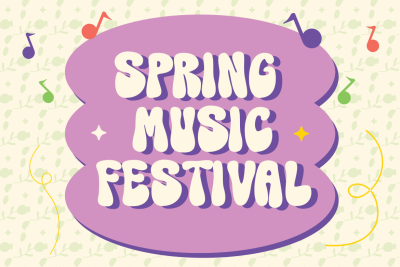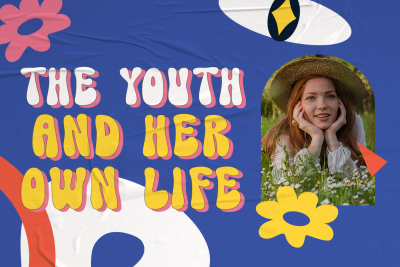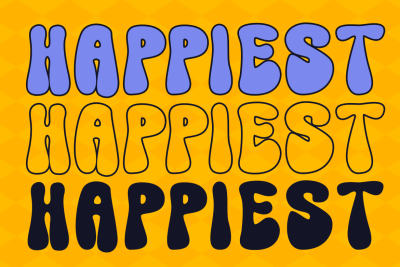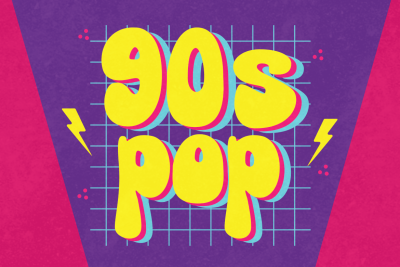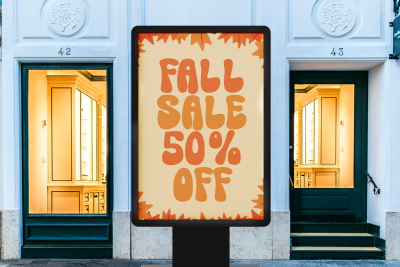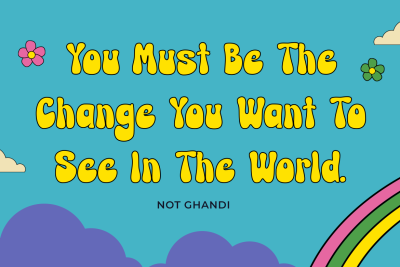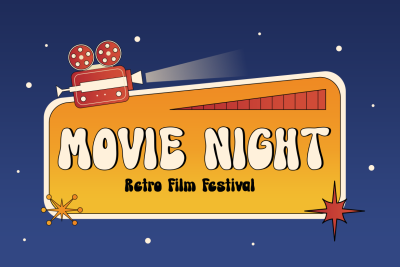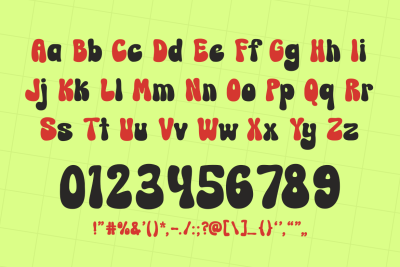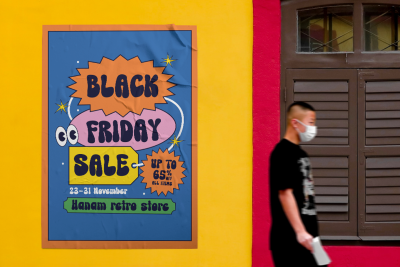
Funny font Trolun is a bold and quirky typeface designed to bring fun and creativity to any project. With its wavy, playful letterforms and hand-drawn appearance, this font adds personality to any design. Moreover, its organic, flowing shapes create movement and dynamism, making it visually engaging. Whether youโre designing a retro-inspired poster or a colorful branding project, this font ensures a lively and energetic touch.
Additionally, Trolun embraces an unconventional yet balanced design, making it visually appealing while ensuring readability. The thick strokes and smooth curves enhance its funky, artistic style. As a result, it works well for projects that need a cheerful and carefree aesthetic. Furthermore, its versatility makes it ideal for both digital and print formats. Whether you’re crafting a bold headline, a fun social media post, or a unique logo, this font guarantees a striking and captivating look.
Funny Font Trolun Perfect For
Trolun is an excellent choice for designers, brands, and creatives who seek a typeface that radiates joy and playfulness. Specifically, it works best for the following applications:
- Retro and Psychedelic Designs: For example, use it to create posters, branding, and advertisements with a fun, 70s or groovy-inspired look. The flowing letterforms make it perfect for vintage and artistic styles.
- Childrenโs Books and Educational Materials: Similarly, it is ideal for book covers, chapter titles, and classroom materials. Since it has a fun and engaging appearance, it makes learning more exciting for kids.
- Festival and Event Posters: In particular, this font works well for music festival flyers, creative workshops, and artistic event invitations. The lively and dynamic feel instantly attracts attention.
- Social Media Graphics and Digital Content: Additionally, apply it to Instagram posts, YouTube thumbnails, and digital ads. Because of its bold aesthetic, it helps content stand out in a crowded feed.
- Toys and Kidsโ Product Packaging: Likewise, use it for branding toy packaging, board games, and other fun merchandise. The soft, rounded shapes make it visually appealing to children.
- Merchandise and Apparel: Furthermore, apply it to T-shirts, stickers, tote bags, and trendy fashion products. The funky letterforms create an eye-catching and artistic look.
- Creative Branding and Logo Design: Finally, it is perfect for businesses in the entertainment, art, or lifestyle industries. The fun and expressive style makes brands feel more unique and exciting.
Overall, Funny font Trolun is a fantastic choice for projects that need a bold, energetic, and free-spirited aesthetic. Thanks to its flowing, hand-drawn shapes and funky personality, it enhances everything from branding to digital content. Whether you’re working on festival posters, social media visuals, or trendy merchandise, this font ensures your designs feel fun, artistic, and full of character.